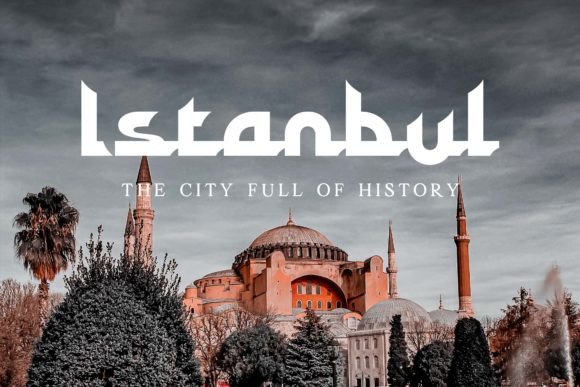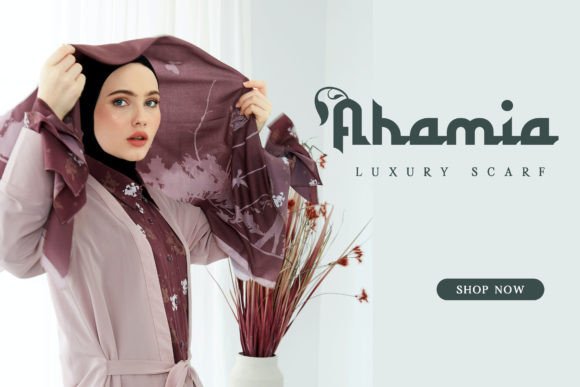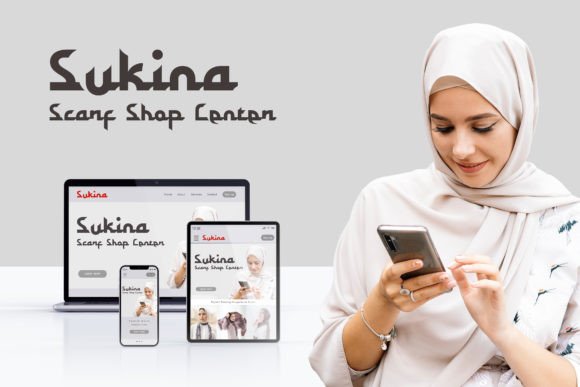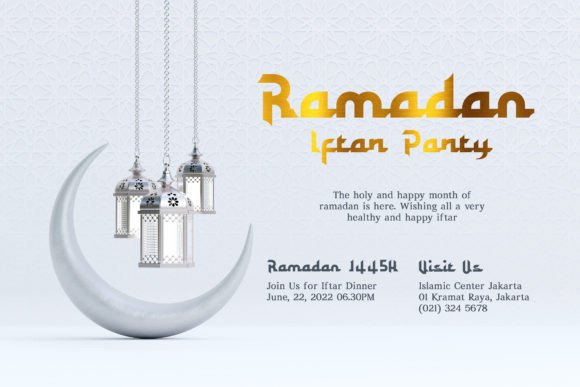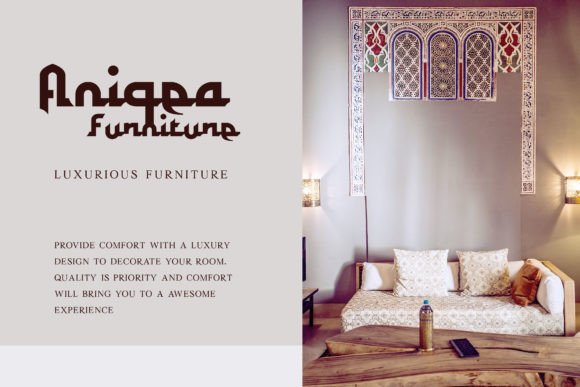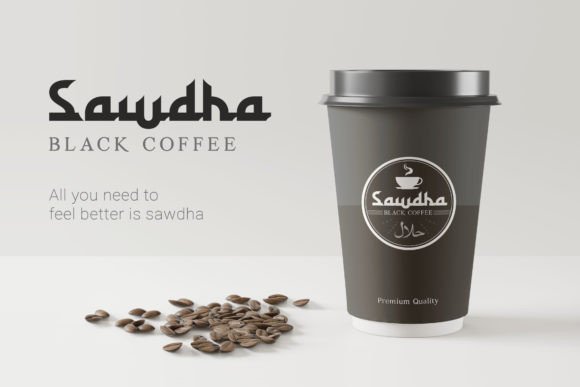
Introduction to Kofin Font
Kofin is an Arabic-style display font that looks stylish, elegant, and modern.
Contemporary and fresh, it is perfect for any design you wish to create Add it to your creative projects and make them outstanding.
Key Features of Kofin Font